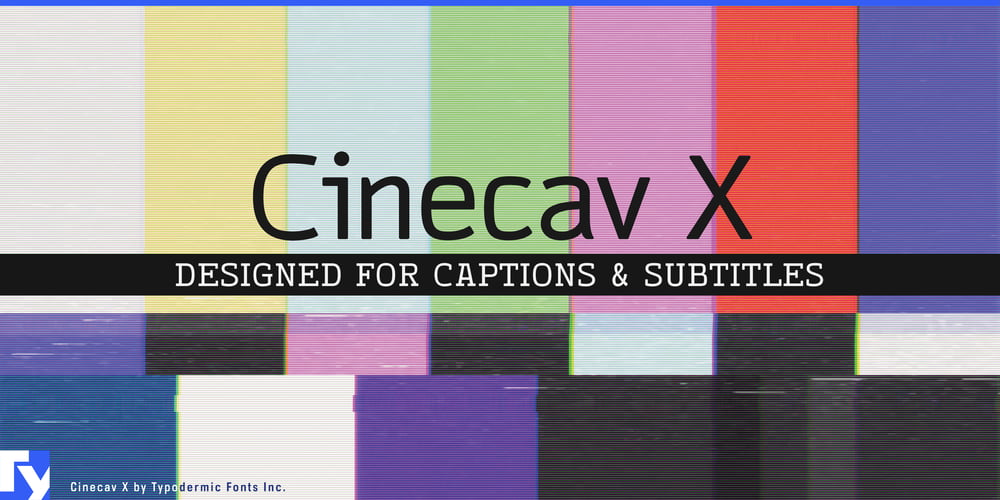
Cinecav X
Cinecav X font
Cinecav X Font Family was designed by Ray Larabie and published by Typodermic. Cinecav X contains 8 styles and family package options. Introducing Cinecav X, a groundbreaking typeface family that brings the clarity and legibility of closed-caption television to a broader design landscape. Born from the renowned Cinecav™ system, Cinecav X evolves beyond its roots to offer designers a powerful tool for creating highly readable text across various mediums.While Cinecav X shares its DNA with its CCTV predecessor, it’s important to note that this typeface isn’t intended for specialized closed caption systems. Instead, it opens up new possibilities for designers seeking to infuse their work with the unmistakable precision and clarity associated with broadcast typography. Cinecav X doesn’t just cross linguistic borders—it demolishes them. With support for an extensive range of Latin-based European languages and a selection of Cyrillic scripts, this typeface family ensures your message remains crystal clear whether you’re designing for audiences in Reykjavik or Vladivostok. From Albanian to Zulu, Cinecav X speaks the language of legibility with unwavering fluency.The versatility of Cinecav X makes it an ideal choice for a wide array of applications. Use it to craft easy-to-read signage for public spaces, design user-friendly interfaces for digital platforms, or create captivating yet accessible magazine layouts. Its broadcast-inspired design ensures that your text stands out with the same clarity and impact as on-screen captions, even in challenging viewing conditions. By choosing this typeface, you’re ensuring that your message doesn’t just reach your audience, but resonates with them. It’s perfect for projects where legibility is paramount, from educational materials to wayfinding systems.Don’t let your typography fade into the background noise. Choose Cinecav X and give your designs the same commanding presence as a breaking news headline. It’s time to broadcast your creativity with the unmatched clarity of Cinecav X—because in the world of design, every word should be prime time.